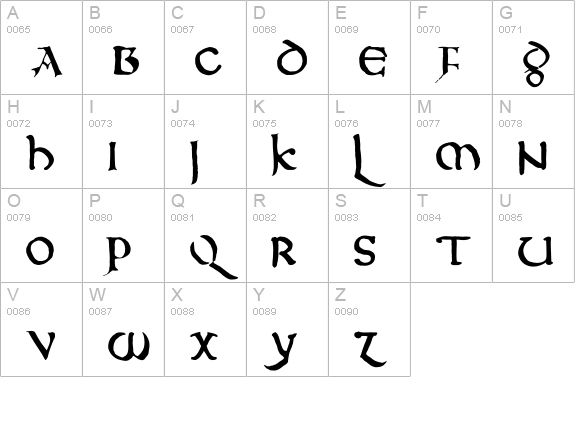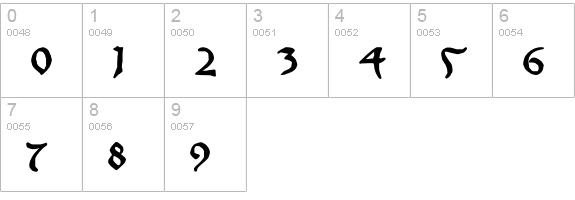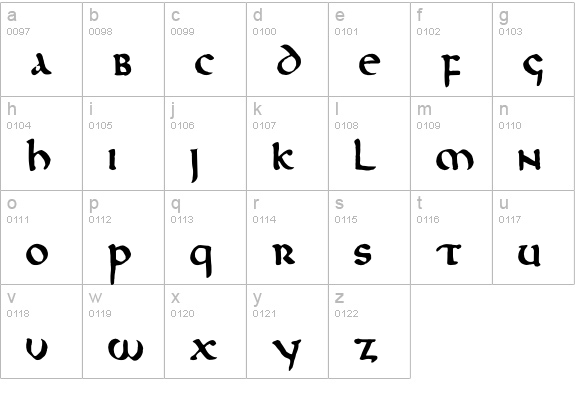
Introducing DK Northumbria, a captivating font that effortlessly blends classic elegance with a modern twist. This font exudes a sense of timeless beauty, making it perfect for both traditional and contemporary projects. DK Northumbria boasts graceful curves and clean lines that lend a touch of sophistication to any design. Its refined letterforms are meticulously crafted, ensuring legibility and visual harmony. Whether used in headlines, body text, or logos, this font commands attention and leaves a lasting impression. What makes DK Northumbria even more appealing is that it is freely available to download at FontsMarket.com. Yes, you read that right! This exquisite typeface can be yours at no cost, allowing you to enhance your creative endeavors without breaking the bank. With DK Northumbria, the possibilities are endless. From branding and packaging to editorial design and web graphics, this versatile font will elevate your projects to new heights. Its versatility is unmatched, effortlessly adapting to various design styles and aesthetics. So, why wait? Embrace the beauty and elegance of DK Northumbria today. Download this remarkable font free of charge at FontsMarket.com and let your creativity flourish like never before.